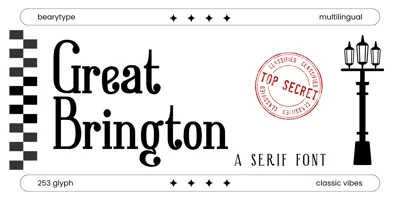
Great Brington Font
The Great Brington Font is excellent for English countryside tourism, traditional British pubs, heritage hotel branding, Victorian-era publications, classic literature covers, aristocratic estate materials, British royal commemoratives, and traditional tea house signage. This distinguished typeface works beautifully in applications where British heritage and aristocratic elegance need to be communicated, making it perfect for establishments that want to evoke the grandeur and refined sophistication of English country manor traditions.
What makes Great Brington Font exciting is its regal British character and aristocratic refinement that instantly transports viewers to the grand estates and rolling countryside of England. The font's noble letterforms and carefully crafted details create an atmosphere of established heritage and upper-class sophistication, making it ideal for brands that want to communicate timeless quality, prestigious lineage, and quintessentially English values. Its elegant character design reflects centuries of British typographic excellence and cultural distinction.
The Great Brington Font family typically includes light, regular, and bold weights, often featuring ornamental capitals, traditional British ligatures, and decorative elements reminiscent of Victorian typography. Many versions include royal symbols, heraldic ornaments, and specialized characters that provide designers with comprehensive tools for creating authentically British design projects with genuine aristocratic appeal and historical accuracy.
For designers working on projects that require British authenticity and aristocratic credibility, Great Brington Font offers exceptional heritage value. Its ability to instantly communicate English nobility and established tradition makes it an invaluable choice for luxury brands, heritage organizations, and any project requiring typography that embodies the dignity, refinement, and enduring appeal of classic British culture and aristocratic elegance.